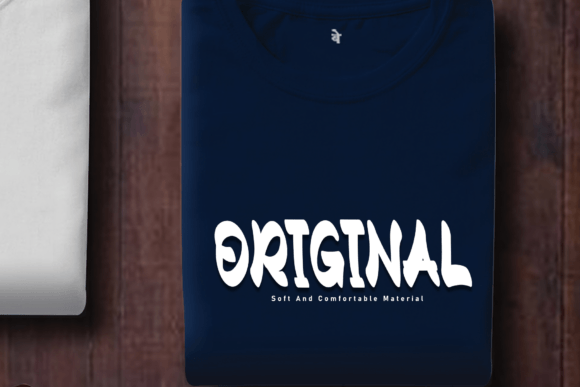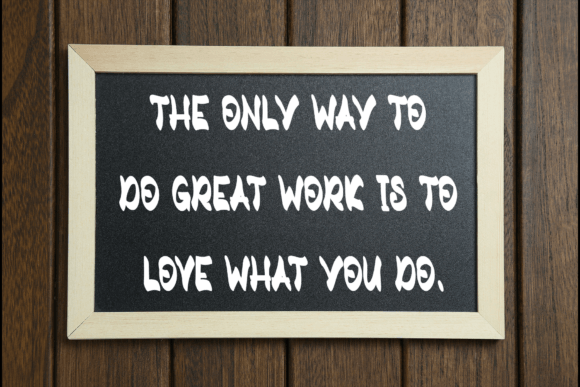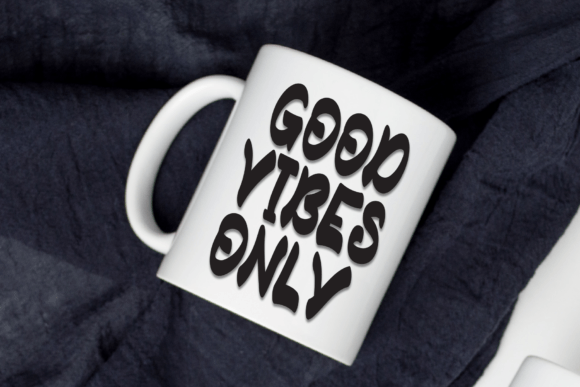
Introduction to Scary Christmas Font
Introducing our latest typographic delight, a charming and approachable handwritten display font.
With its sweet and delightful character, this font exudes a friendly allure, perfect for a range of design uses Its captivating appeal makes it the go-to choice for crafting heartwarming wedding invitations and captivating cards.
Why Choose Scary Christmas Font?
Scary Christmas Font offers exceptional quality and versatility, making it a valuable addition to your design toolkit. Whether you’re creating for personal projects or commercial use, Scary Christmas Font delivers professional results.